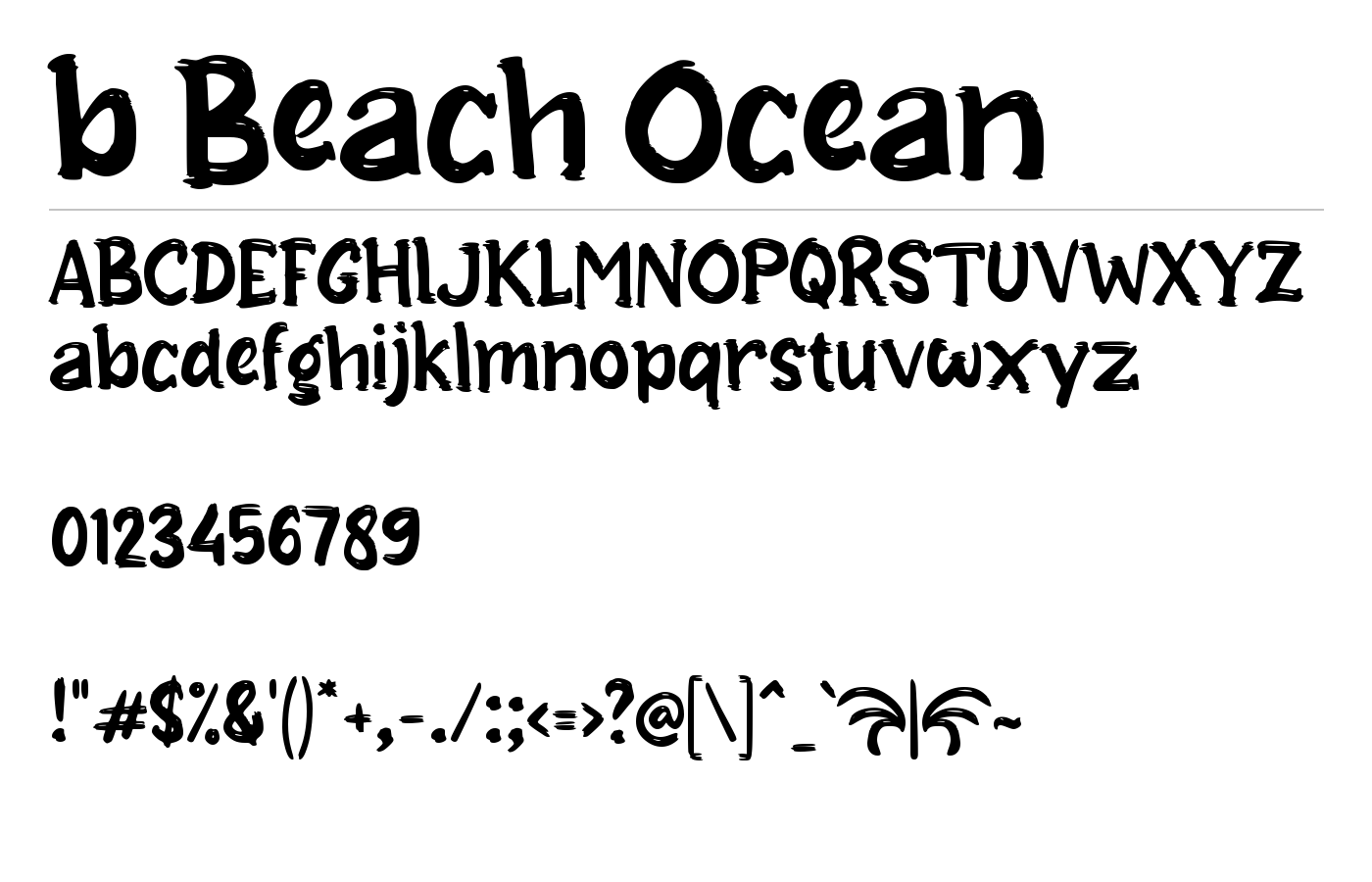
b Beach Ocean is a playful and casual handwritten sans serif font with a bold, slightly uneven stroke that mimics brush or marker writing. Its lively, relaxed style with irregular shapes and strong personality makes it perfect for designs that want to evoke a fun, beachy, or informal vibe. This font works well for branding, posters, and headlines where a cheerful, approachable look is desired.
b Beach Ocean Font
About b Beach Ocean Font